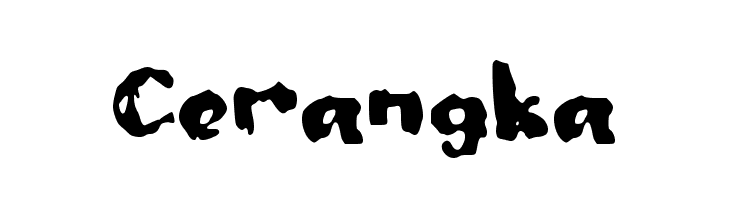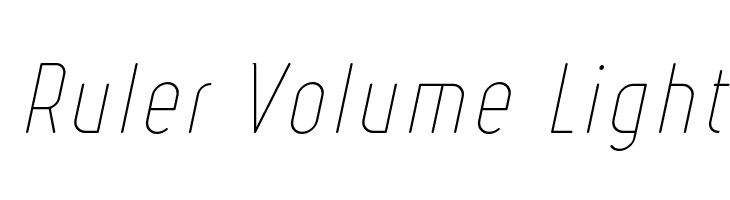
A bold, irregular, hand-drawn font with an artistic and whimsical style.
A bold, geometric outline font with sharp angles and clean lines.
A sophisticated script font with flowing, cursive strokes and elegant flourishes.
A playful 3D block font with a hand-drawn, artistic style.
A bold, italicized outline font with a futuristic and dynamic style.
A bold, distressed font with a rugged, vintage look.
A bold, slanted font with a modern, geometric style.
A sleek, modern, and slightly condensed italic font with low contrast.
A bold, decorative font with geometric shapes and intricate details.